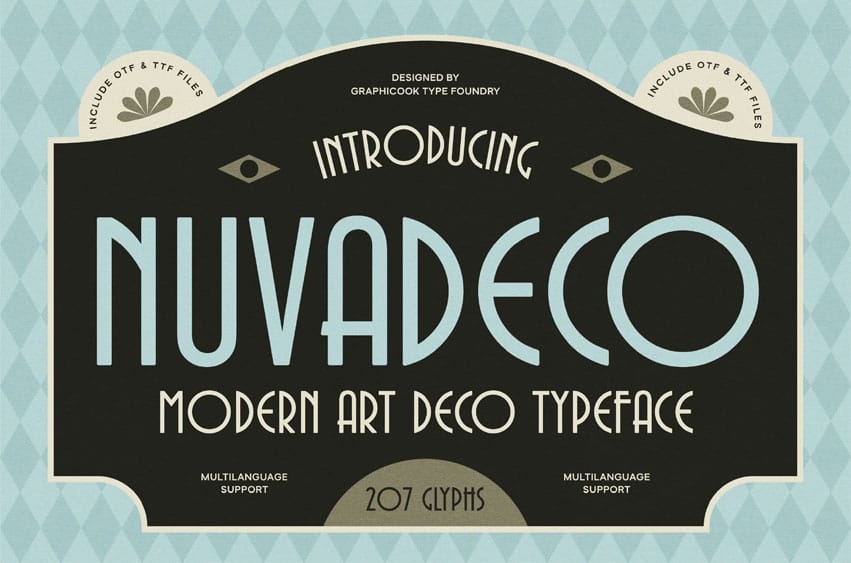
Nuvadeco Font is an Art Deco-inspired font defined by its precise geometric shapes and refined style. It radiates timeless elegance, making it well-suited for branding, packaging, editorials, and high-end design work.
It is perfect for headlines, logotypes, magazines, packaging, quotes, movies, games, cover albums, book covers, and flyers. It’s a perfect solution for creating eye-catching designs that stand out in any context.